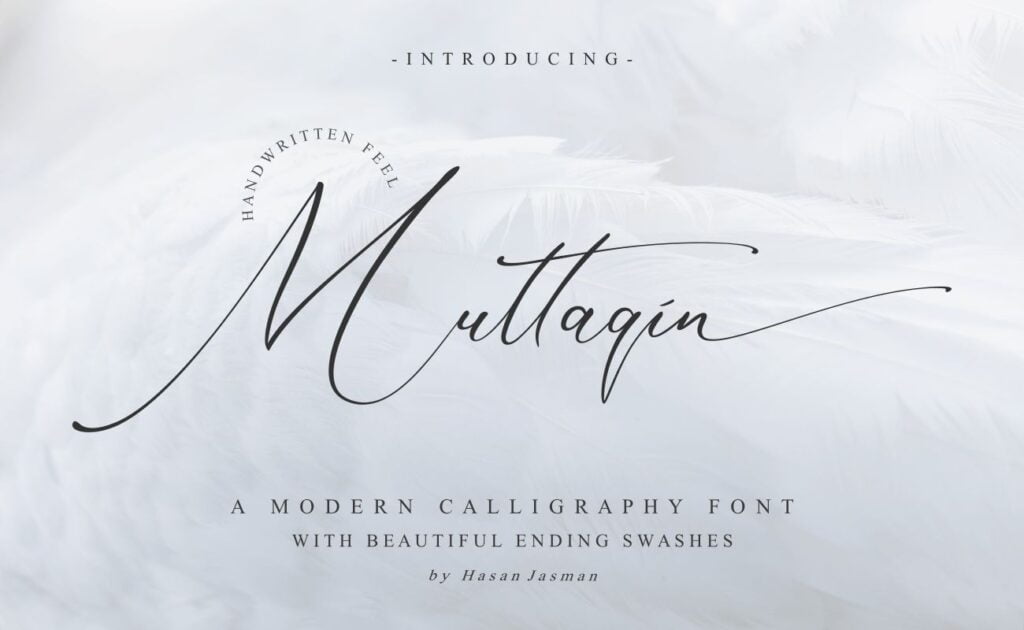
Muttaqin Font
Muttaqin Font is a stylish modern Calligraphy font. It is perfect for branding, signature, wedding invitation, promotion, product packaging, and other needs. You will get full set of lowercase and uppercase letters, numerals and punctuation, multilingual symbols.
Muttaqin Modern Calligraphy Font